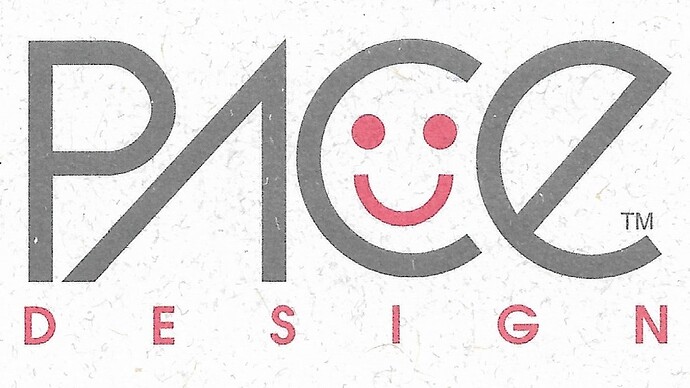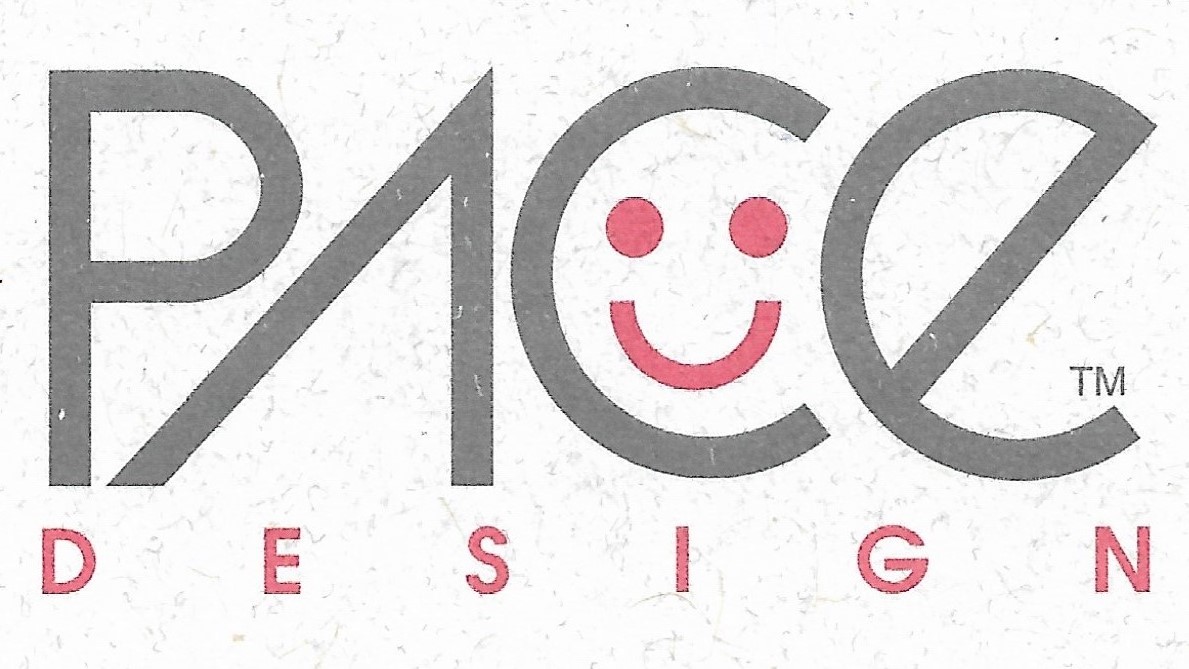
This font was use in an old logo from many years ago. I have been tasked with either finding it or finding someone that can recreate it at a reasonable cost?
the “DESIGN” part is ITC Avant Garde Gothic Pro Demi.
The “PACE” part:
“PA” is ITC Avant Garde Gothic Pro, too, probably the Book cut, the A is from the alternates with a customized pointy top.
“CE” is probably Yellow Peas Regular, the E is also from the alternate set.
It was surely customized all in all.